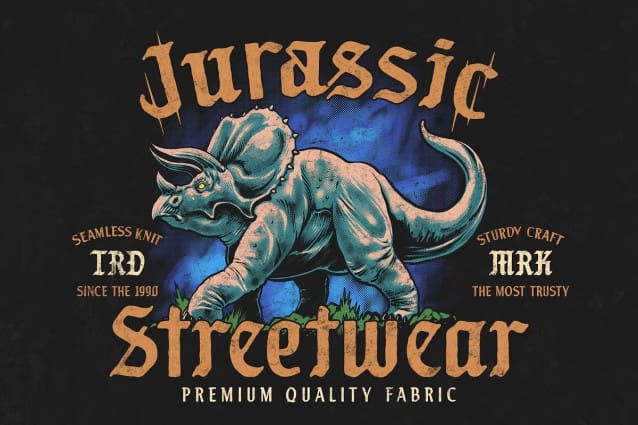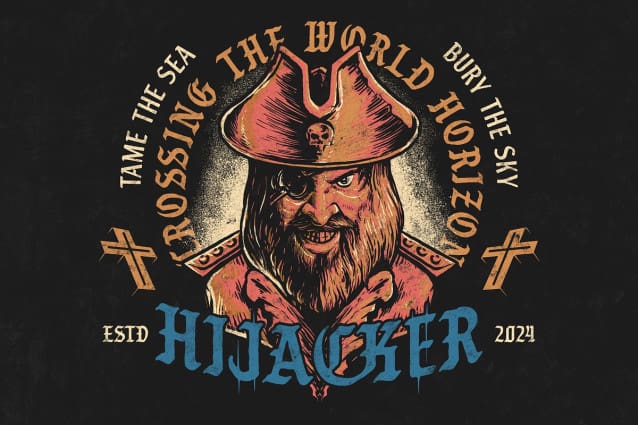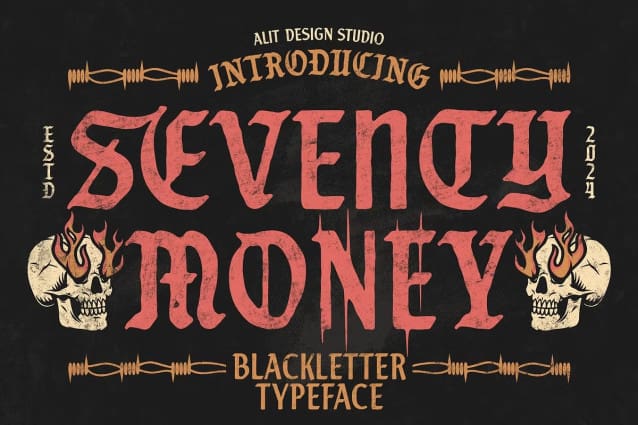
Seventy Money Font
Seventy Money Font is a carefully crafted blackletter font with rough, vintage lines, designed for projects that require a classic, dramatic feel. The font features an aged, worn texture, giving each character the appearance of being aged over time, as if printed from blocks of wood or aged metal type. Its intricate design captures the essence of medieval Gothic lettering, but with a rough, modern touch.